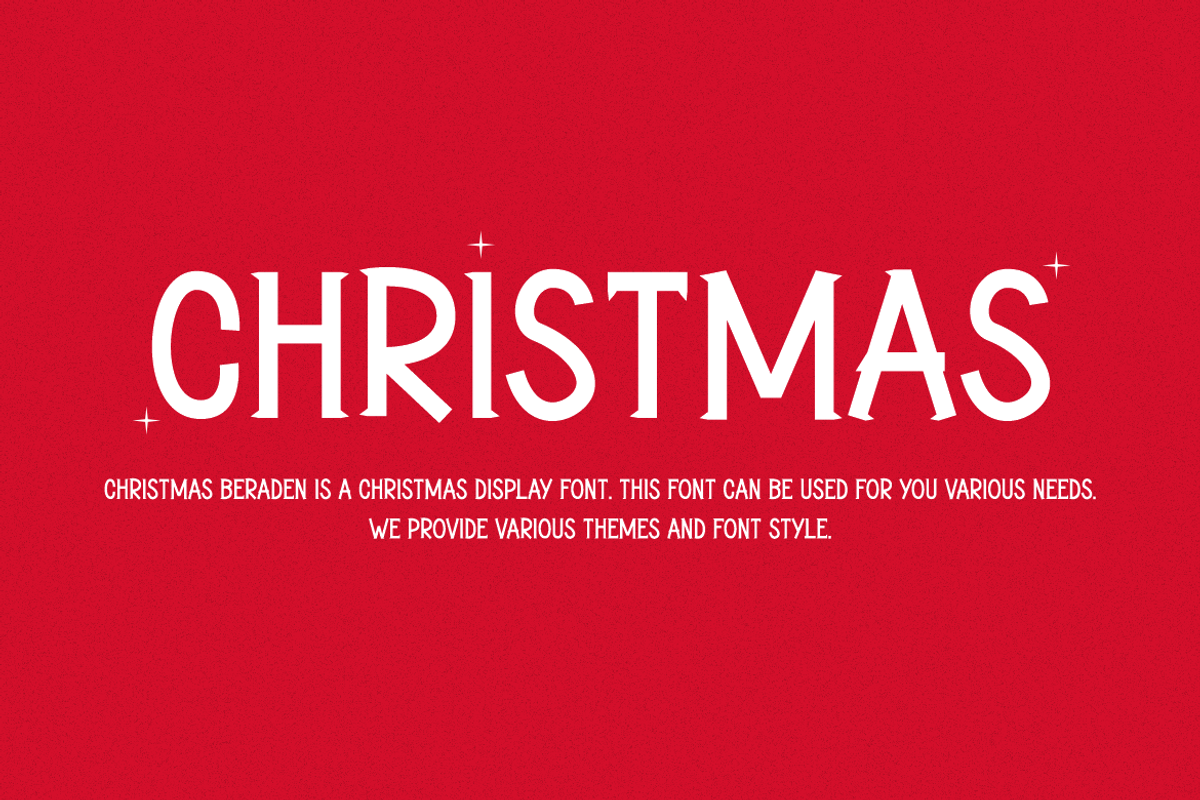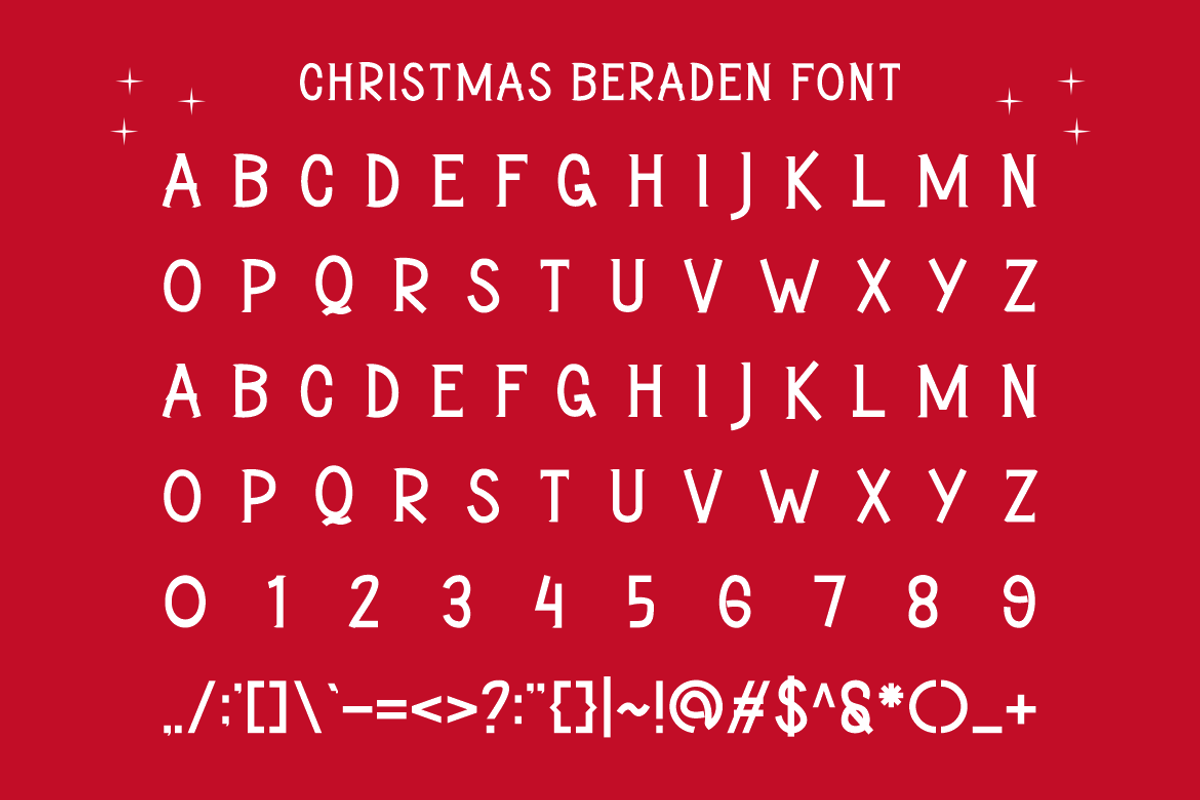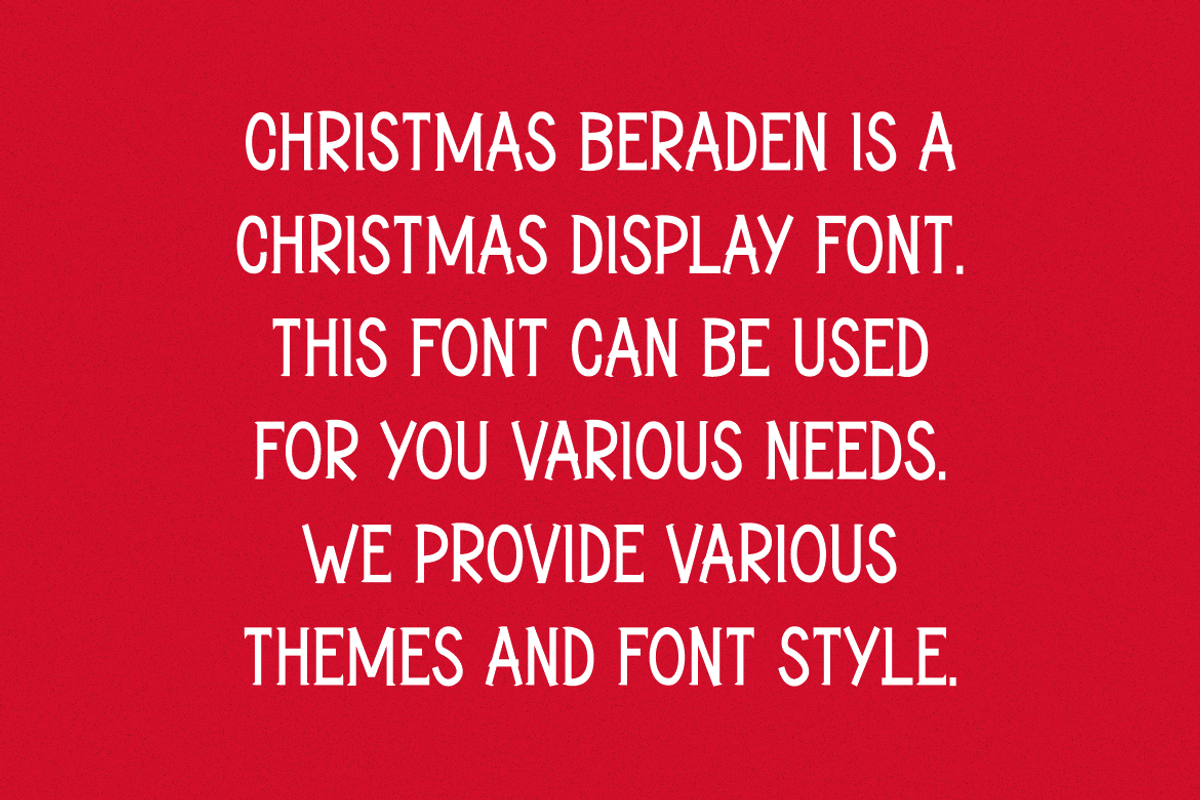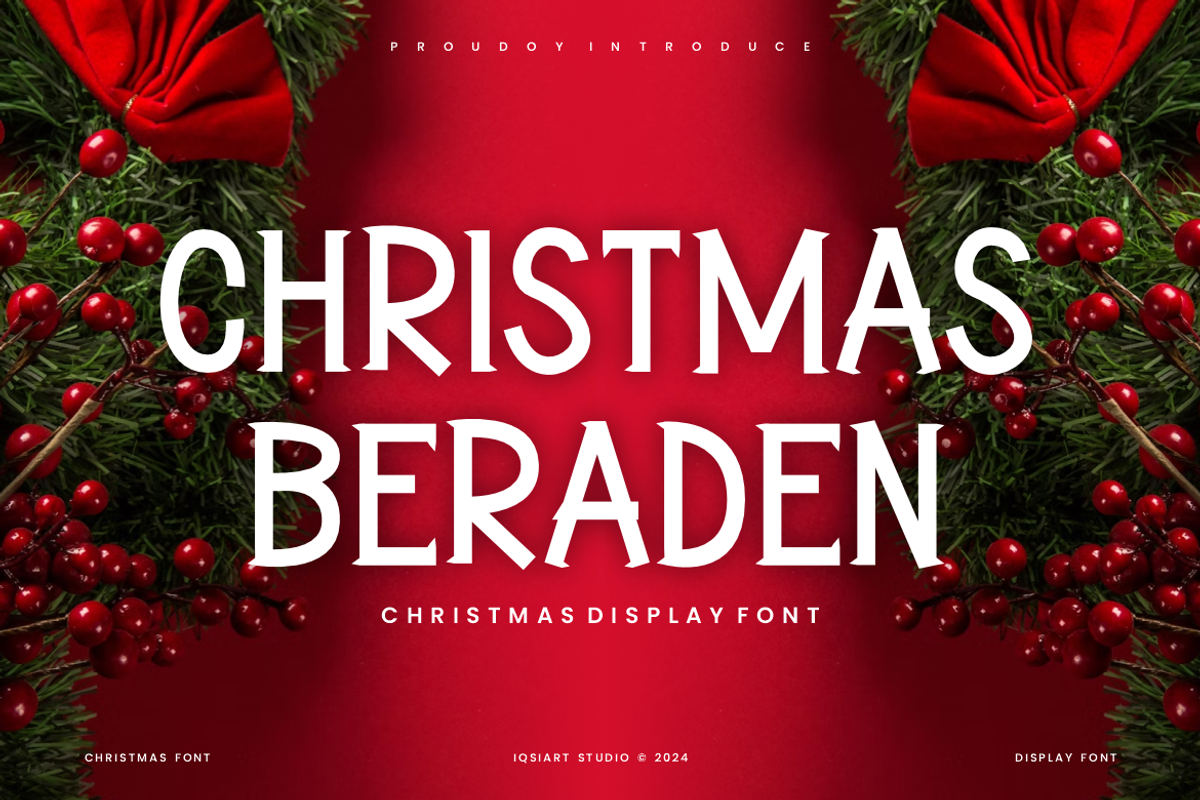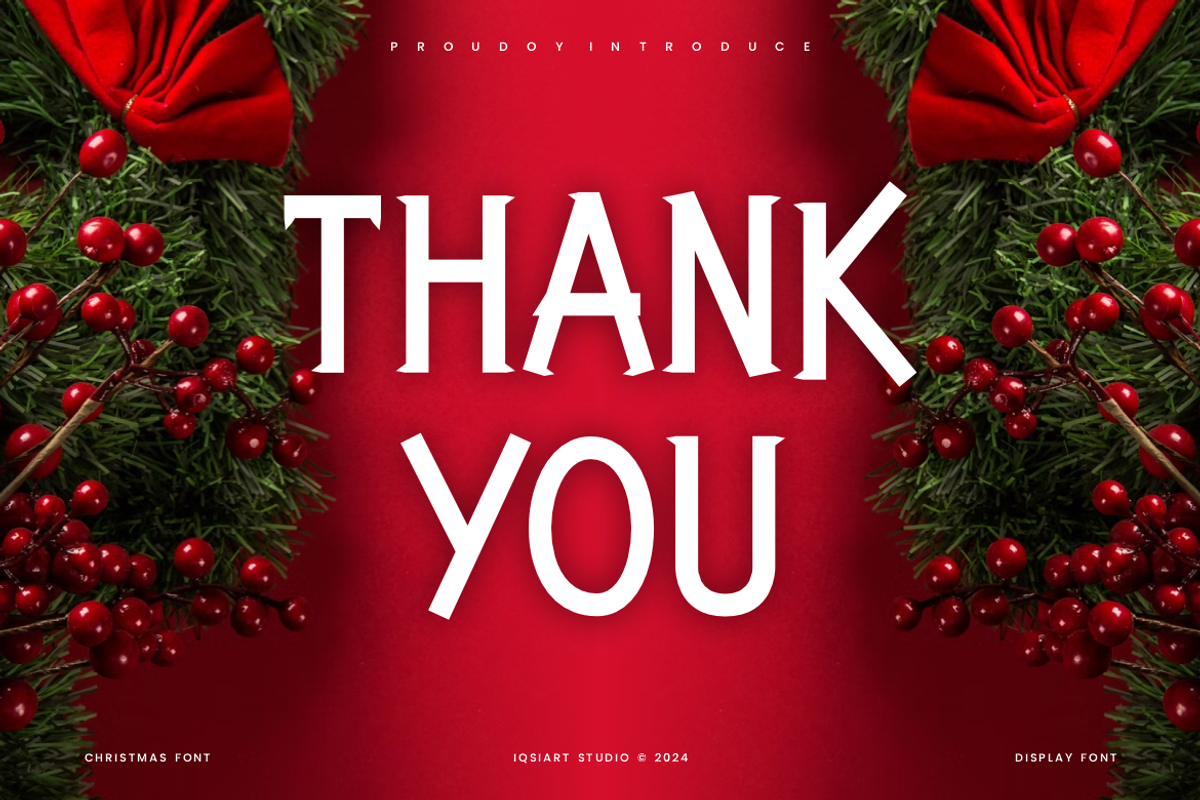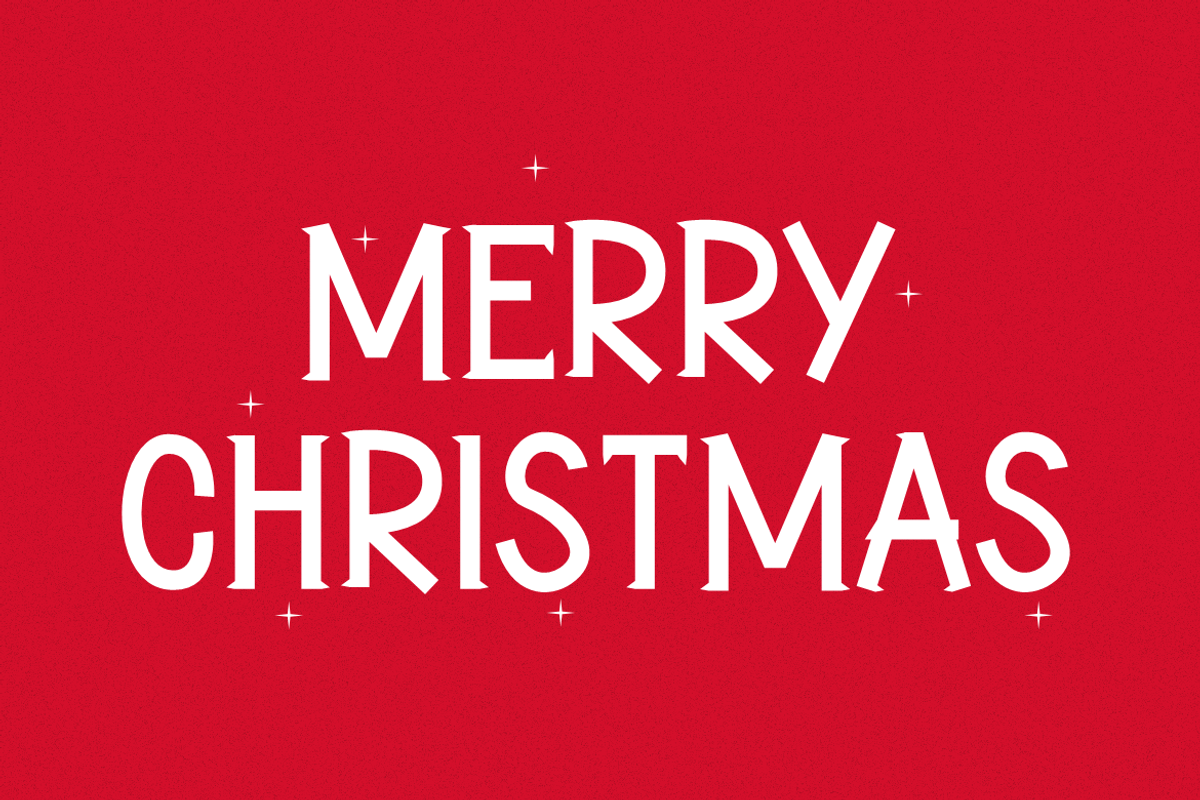
Christmas Beraden Font
Christmas Beraden Font is a best and authentic display font. This font can be used for your various needs. We provide various themes and font styles. visit our profile to get a wide variety of themes and different font styles you need.